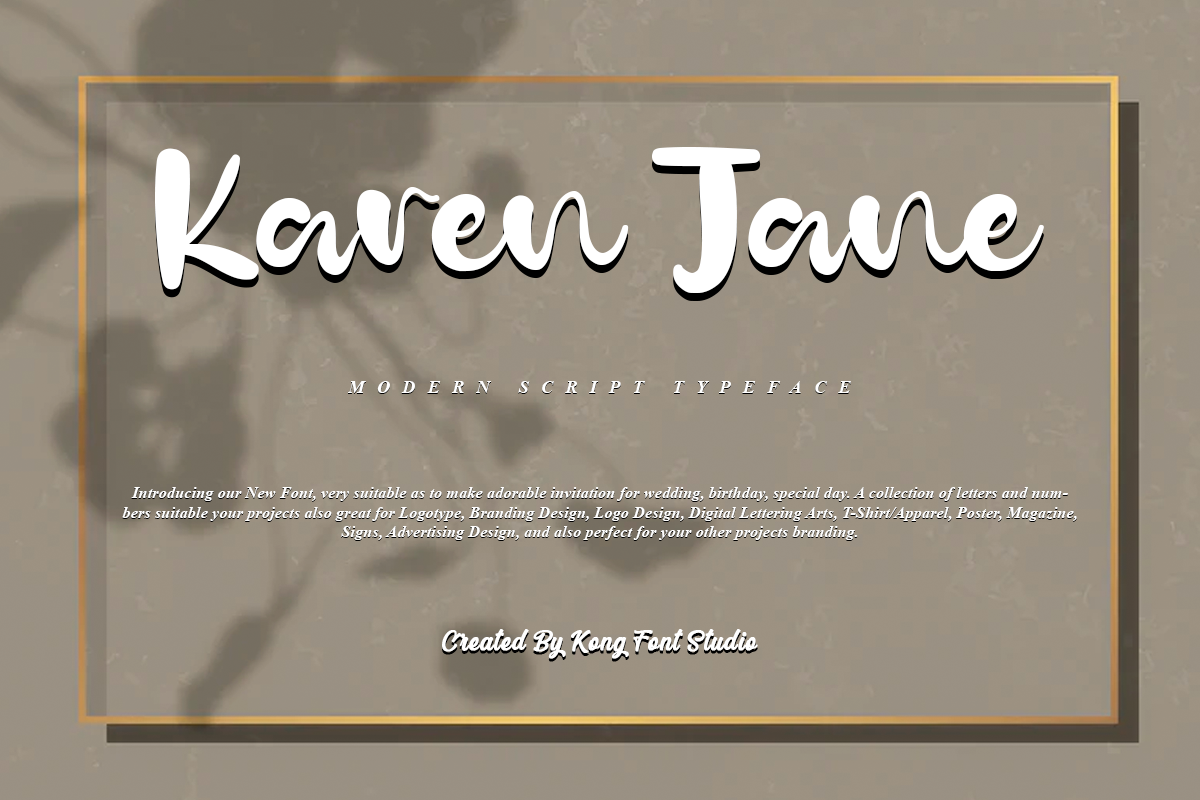
Karen Jane Font
Karen Jane Font By Kong Font Fontriver With its smooth brush style and semi expanded width, karen jane is versatile enough to be used in a variety of design projects such as wedding invitations, logos or branding materials. this font's bold weight makes it ideal for headlines or titles that need to stand out. Karen jane “ the happy and efficient people in this world are those who accept trouble as a normal detail of human life and resolve to capitalize it when it comes along. Karen jane is a font. the typeface contains 2 files and supports 41 languages. the font can be used in non commercial use. karen jane was developed kong font. Free download of the karen jane font. a great choice to highlight the elements of your project.
Karen Jane Font By Kong Font Fontriver Download karen jane font for windows and mac. karen jane font was designed by font kong and has been downloaded 1,874 times. Copyright typeface © (kong font). 2021. all rights reserved. This font features a bold, playful script style with a handwritten feel. the characters are rounded and fluid, giving a sense of movement and energy. the uppercase letters are slightly more structured, while the lowercase letters have a more casual, flowing appearance. Discover & download karen jane font. a bold, playful script font with a hand drawn style. with ️ whatfontis.
Karen Jane Font Free Download This font features a bold, playful script style with a handwritten feel. the characters are rounded and fluid, giving a sense of movement and energy. the uppercase letters are slightly more structured, while the lowercase letters have a more casual, flowing appearance. Discover & download karen jane font. a bold, playful script font with a hand drawn style. with ️ whatfontis.